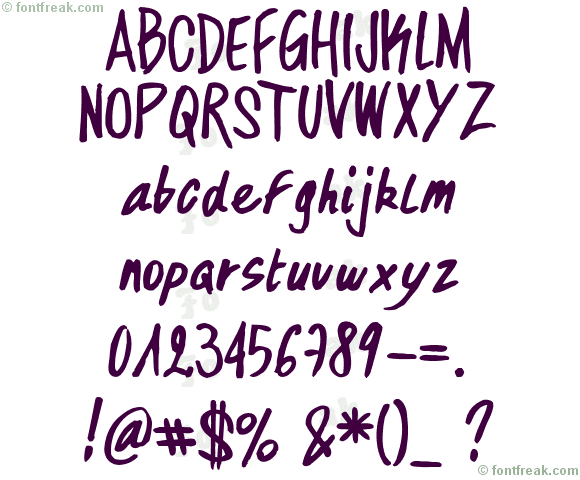
DIRTY_HAND_OF_CRE
The DIRTY_HAND_OF_CRE font by FRED CRE is a unique display typeface that embodies a playful yet rugged aesthetic, making it an excellent choice for various creative projects. This font is characterized by its handwritten style, featuring irregular strokes that convey a sense of spontaneity and authenticity. With a medium stroke weight and minimal contrast, each letter exudes a casual charm, while the uneven spacing adds to its handcrafted feel. The decorative elements are subtle yet impactful, contributing to its overall character without overpowering the text.
Ideal use cases for the DIRTY_HAND_OF_CRE font include wedding invitations, where its quirky vibe can personalize the event. It also works beautifully on movie posters, particularly for indie films seeking to evoke a sense of rawness and creativity. Restaurant menus can benefit from this font, especially for establishments that aim to present a laid-back atmosphere—think food trucks or casual dining spots. Additionally, it serves well in branding materials for small businesses, helping them to stand out in a competitive market with a distinctive visual identity.
The target audience for this font includes graphic designers, small business owners, and content creators looking to inject personality into their work. Whether designing a logo, creating social media graphics, or crafting promotional materials, this font provides a unique touch that resonates with viewers.
What sets the DIRTY_HAND_OF_CRE font apart is its ability to blend a sense of informality with artistic flair, making it a versatile choice for a variety of projects. By opting for the DIRTY_HAND_OF_CRE font free download, designers can elevate their creations with a typeface that truly reflects creativity and individuality.